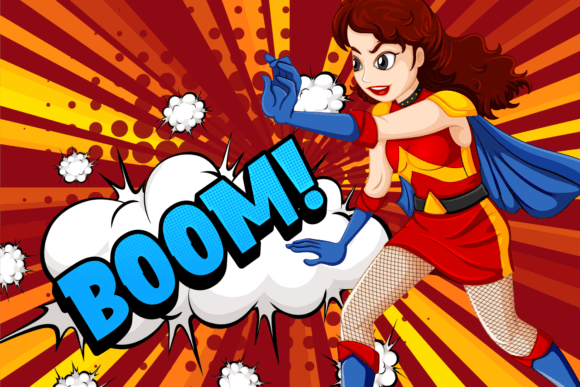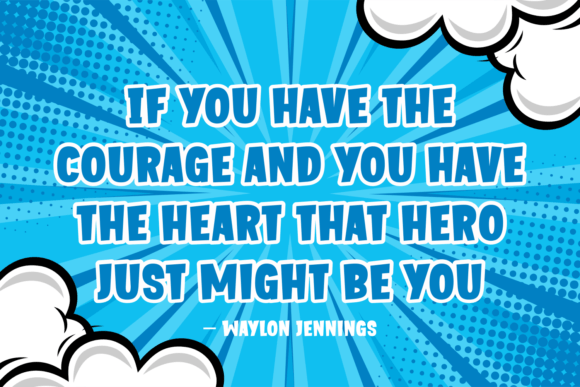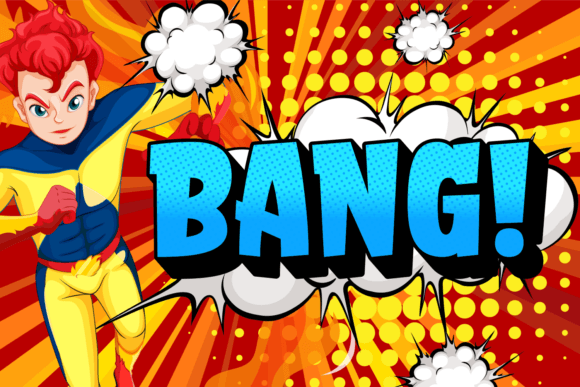
Introducing Comico Bright Font: Add a Touch of Joy and Playfulness to Your Designs
Are you looking for a font that can add a dash of excitement and playfulness to your design creations? Look no further than Comico Bright Font! Inspired by cartoons and comic book typography, this fantastic cartoon display font is sure to make any design stand out. In this article, we’ll explore the features and benefits of Comico Bright Font, and how you can use it to take your designs to the next level.
What is Comico Bright Font?
Comico Bright Font is a unique and eye-catching display font that is perfect for designers and crafters who want to add a touch of fun and playfulness to their work. With its bold and colorful design, this font is inspired by the classic typography of cartoons and comic books. Whether you’re creating posters, kids’ t-shirts, advertisements, headlines, or apparel, Comico Bright Font is the perfect choice.
Key Features of Comico Bright Font
- Cartoon-inspired design: Comico Bright Font features a bold and colorful design that is inspired by classic cartoons and comic books.
- Display font: This font is perfect for headlines, titles, and short text, making it ideal for posters, advertisements, and other eye-catching designs.
- Playful and fun: Comico Bright Font adds a touch of joy and playfulness to any design, making it perfect for kids’ products, party invitations, and more.
How to Use Comico Bright Font
Comico Bright Font is a versatile font that can be used in a variety of design projects. Here are some ideas to get you started:
- Posters: Use Comico Bright Font to create eye-catching posters for movies, events, or promotions.
- Kids’ t-shirts: Add a touch of fun and playfulness to kids’ t-shirts with Comico Bright Font.
- Advertisements: Use Comico Bright Font to create bold and attention-grabbing advertisements.
- Headlines: Add a pop of color and excitement to your headlines with Comico Bright Font.
- Apparel: Use Comico Bright Font to create fun and playful designs for hats, bags, and other apparel.
Benefits of Using Comico Bright Font
Using Comico Bright Font in your design projects offers a range of benefits, including:
- Increased visibility: Comico Bright Font is designed to stand out, making it perfect for designs that need to grab attention.
- Emotional connection: The playful and fun design of Comico Bright Font can help create an emotional connection with your audience.
- Versatility: Comico Bright Font can be used in a variety of design projects, from posters to apparel.
Tips for Getting the Most Out of Comico Bright Font
Here are some tips for getting the most out of Comico Bright Font:
- Use it sparingly: Comico Bright Font is a bold font, so use it sparingly to avoid overwhelming your design.
- Pair it with other fonts: Experiment with pairing Comico Bright Font with other fonts to create a unique and interesting design.
- Experiment with colors: Comico Bright Font comes in a range of colors, so experiment with different colors to find the one that works best for your design.
Comico Bright Font is a fantastic cartoon display font that is perfect for designers and crafters who want to add a touch of joy and playfulness to their work. With its bold and colorful design, this font is inspired by classic cartoons and comic books. Whether you’re creating posters, kids’ t-shirts, advertisements, headlines, or apparel, Comico Bright Font is the perfect choice. So why not give it a try and see how it can take your designs to the next level?